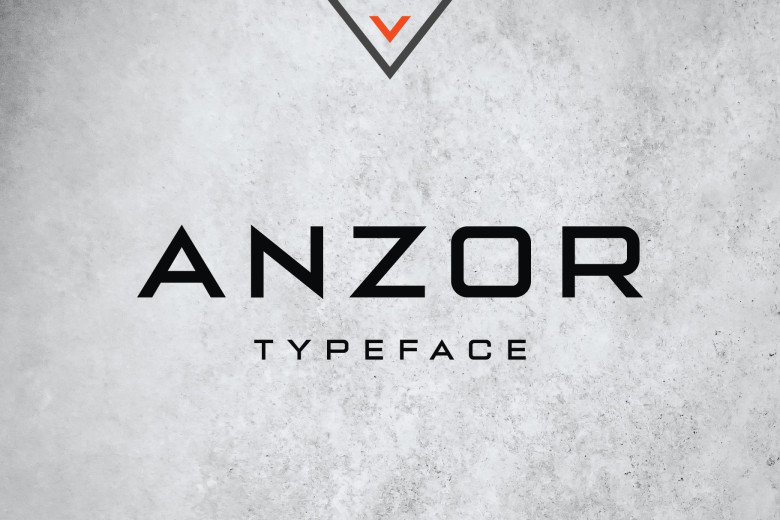
Anzor Font is an innovative wide font with large, bold characters featuring sharp edges that add energy and life to designs. This minimalist yet masculine font can be used in branding as well as banners, social media posts and posters, headers and many other applications.
Anzor Sans Serif Font